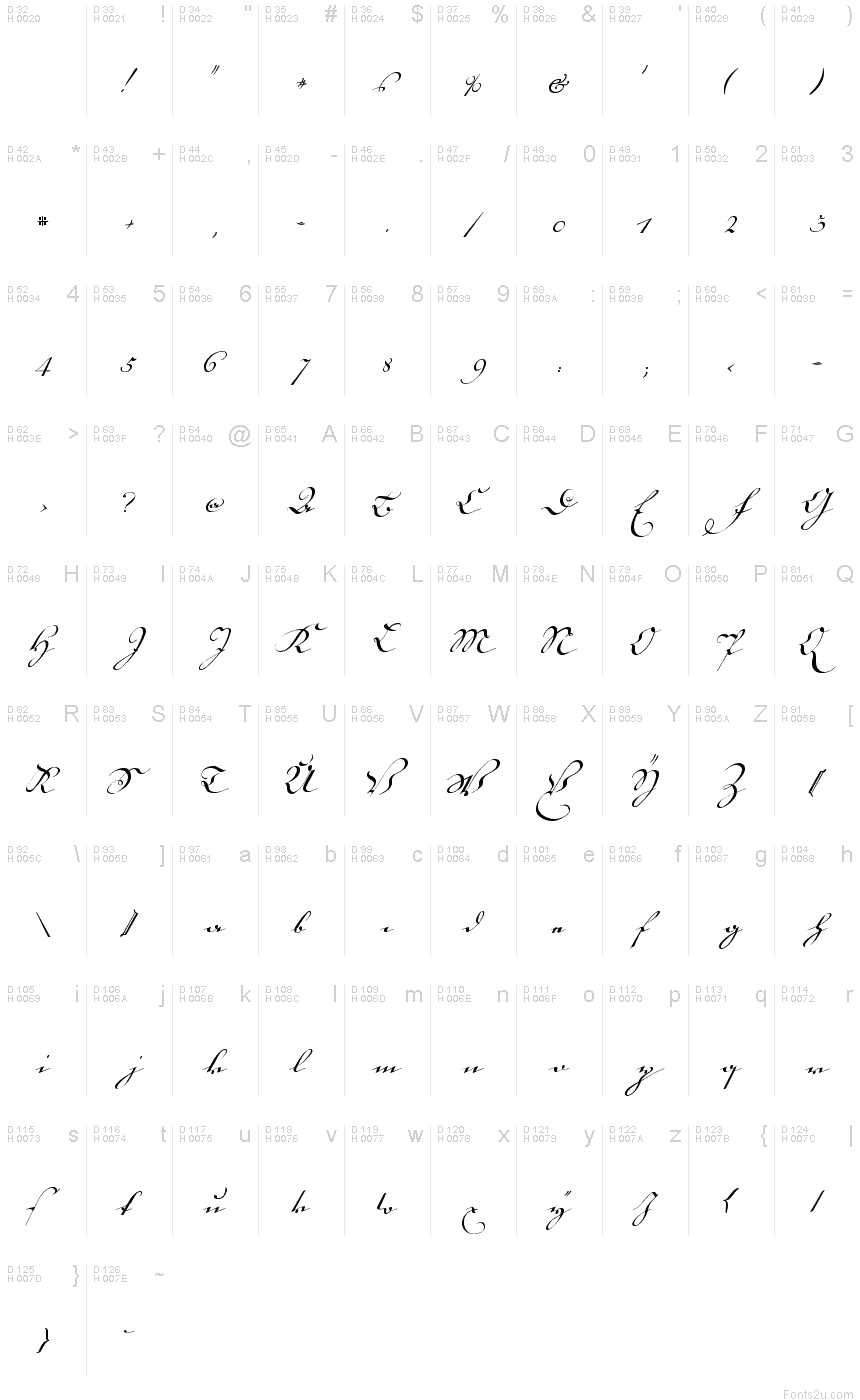
18th Century Kurrent Start
18th Century Kurrent Start is a free historical calligraphy font with sweeping loops and sharply changing stroke widths. Its fine hairlines and broad ink-like curves form elaborate, connected shapes with the ceremony of old penmanship.
Engraved borders and period illustrations can echo these flourishes in invitations, book covers, and heritage packaging. The lettering can become part of the ornament itself. It also suits museum graphics and historical events centered on manuscripts, correspondence, or eighteenth-century culture.